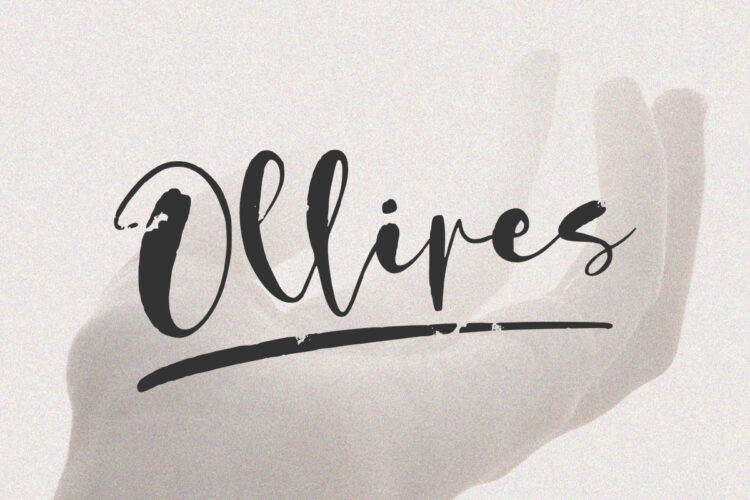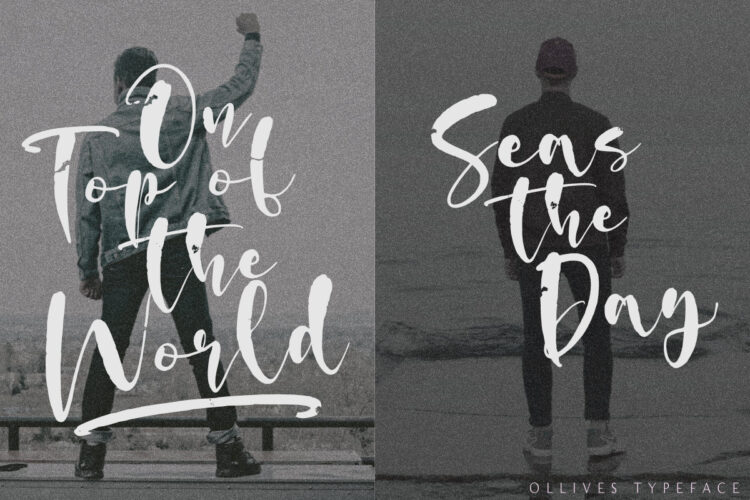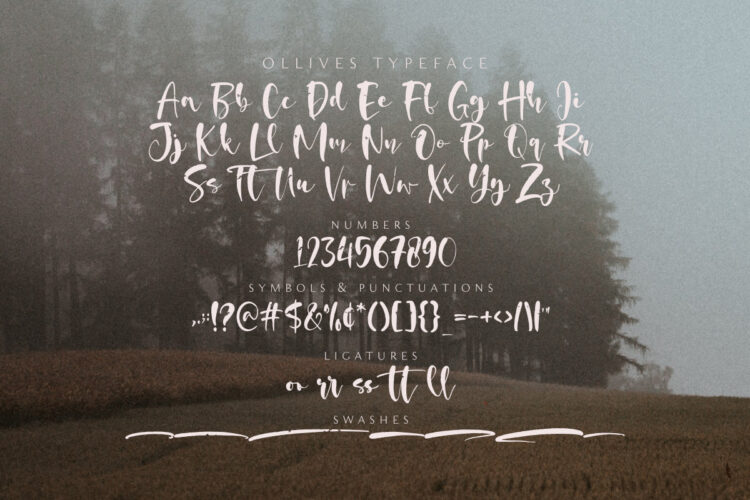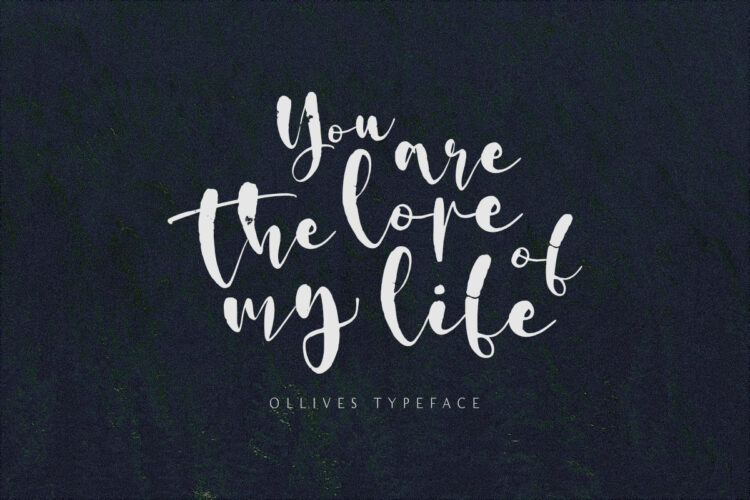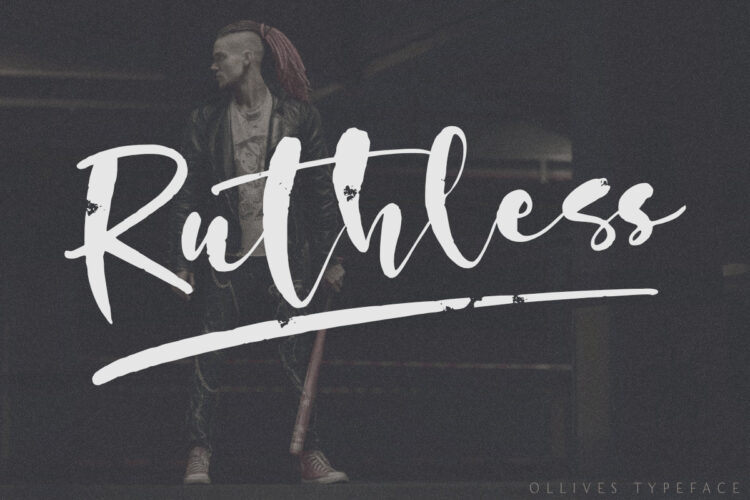
Introducing Ollives, a stylish modern calligraphy-styled script font. This beautiful font is perfect for adding a touch of elegance to any project. With its flowing lines, cool textures, and graceful curves, Ollives is sure to add a touch of class to your work.